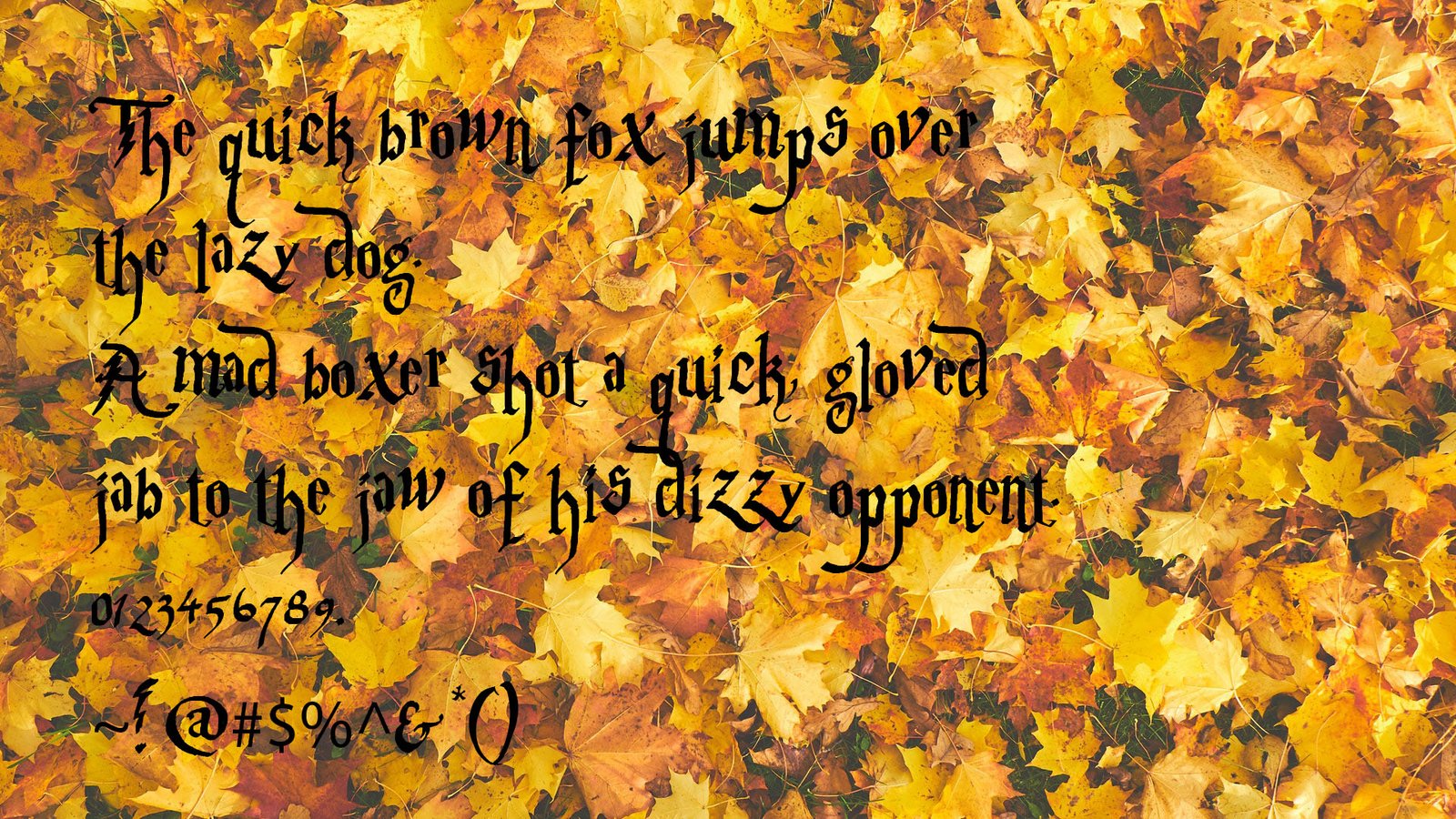
Welcome, We are introducing a very elegant and amazing typeface family. This font style is a member of the Display typeface. It is known as the name of the Parry Hotter Font. This Font style was created by a famous graphic designer called Anke-art.
| Name | Parry Hotter Font |
| Designer | Anke-art |